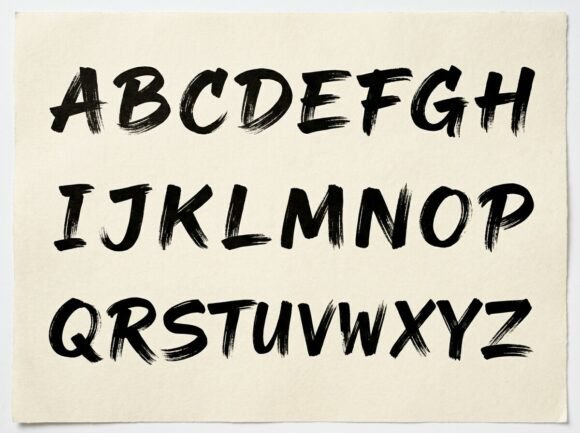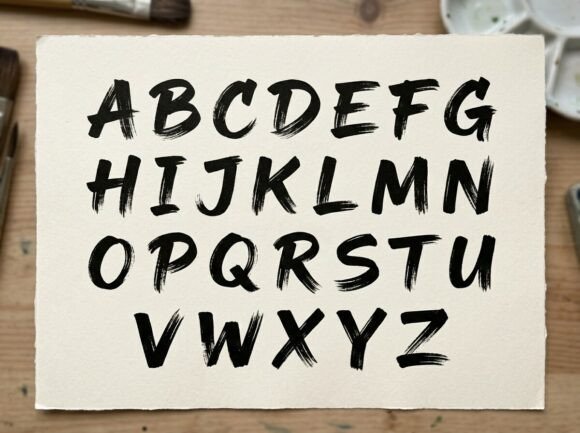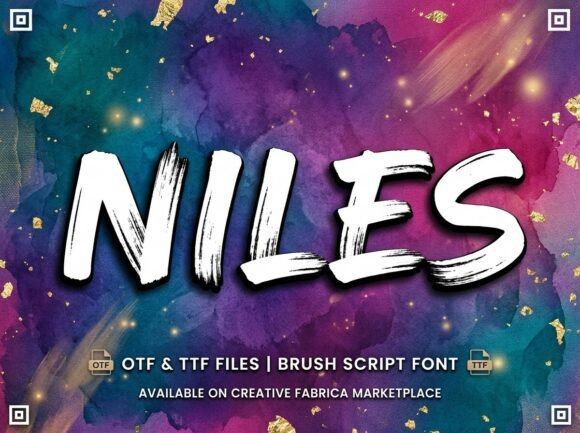
Introduction to Niles Font
Command attention with the aggressive, high-energy stroke of Niles, a bold brush script font built for high-impact visual storytelling.
This typeface features heavy, athletic letterforms characterized by sharp, kinetic brush flourishes and a massive visual weight that radiates unyielding power Its industrial silhouette and rhythmic, chiseled terminals make it an extraordinary choice for competitive sports branding, edgy streetwear logos, high-octane cinematic headers, and bold digital posters.